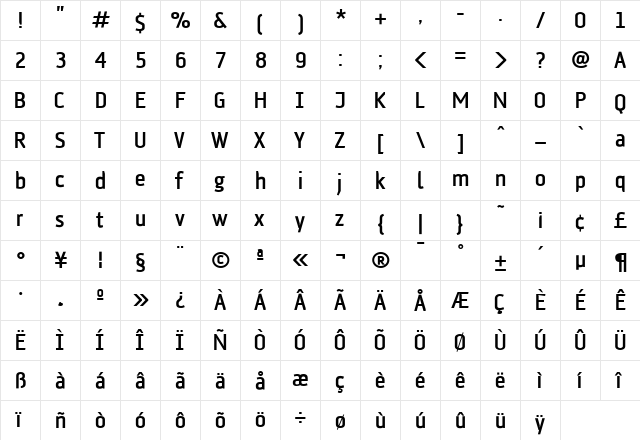
AFKlampenborg Medium
Design Context for AFKlampenborg Typeface
AFKlampenborg offers clean, dependable letterforms without strong stylistic allegiance, making it a practical choice for designers who need flexibility.